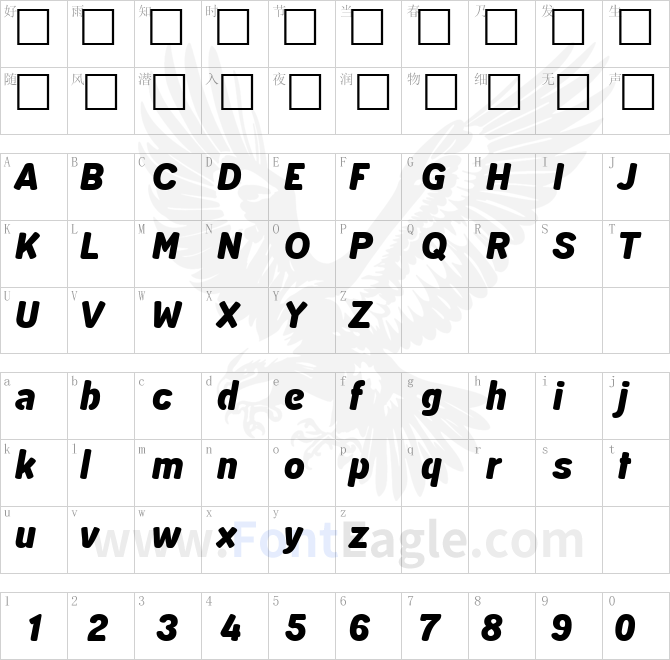
Draftsman-Regular-DB is a great font, widely used in graphic design, single-page menu design, poster design and other fields, and is deeply loved by designers.Draftsman-Regular-DB download.